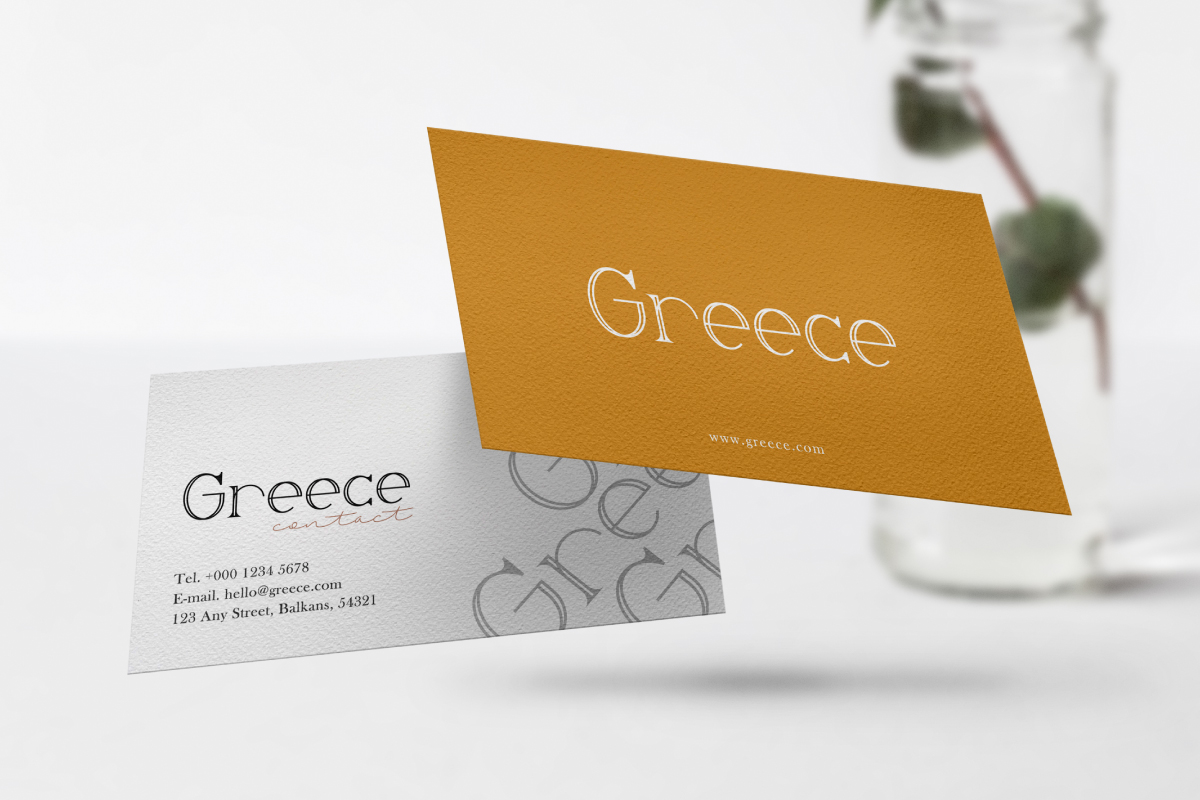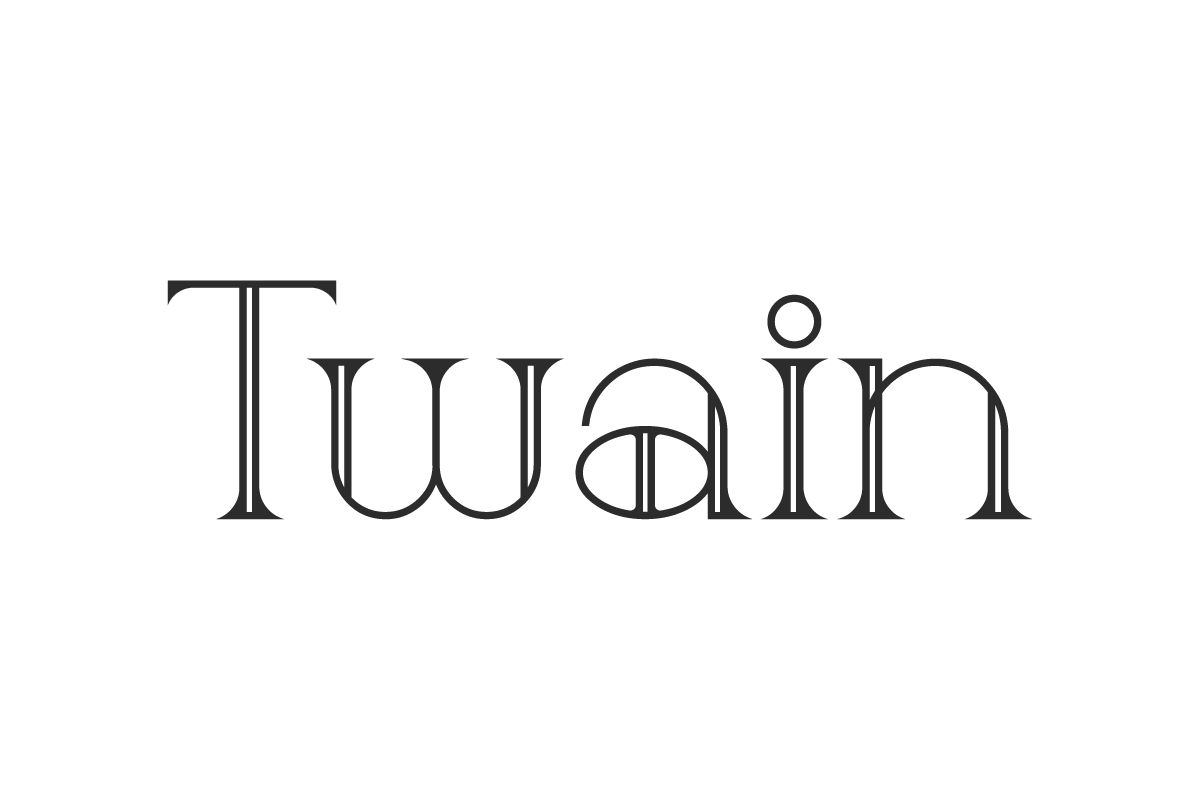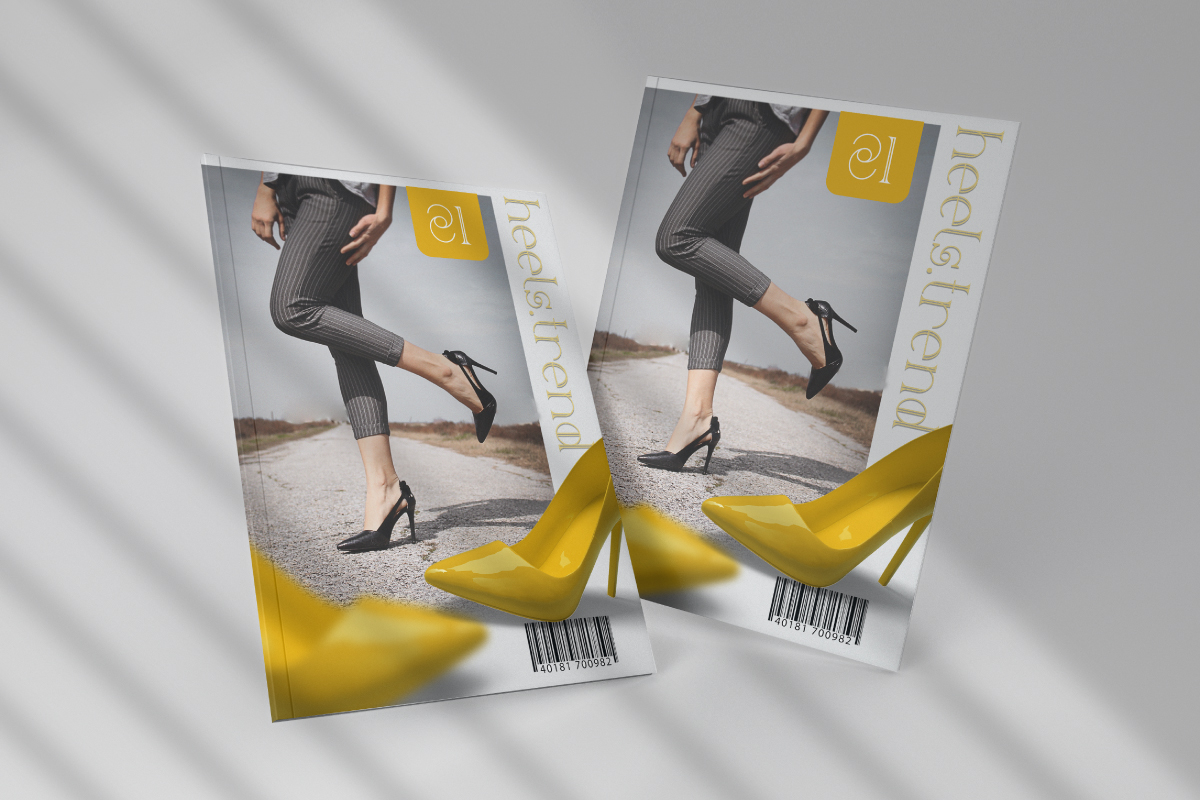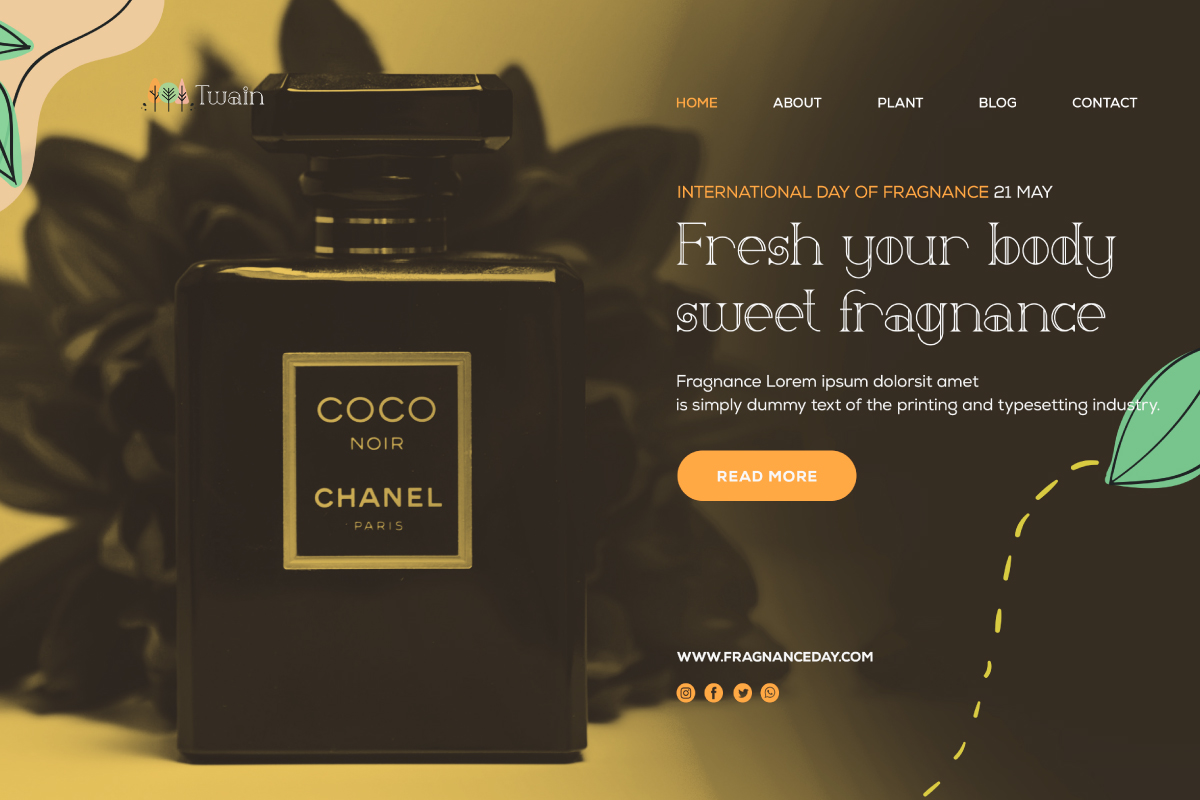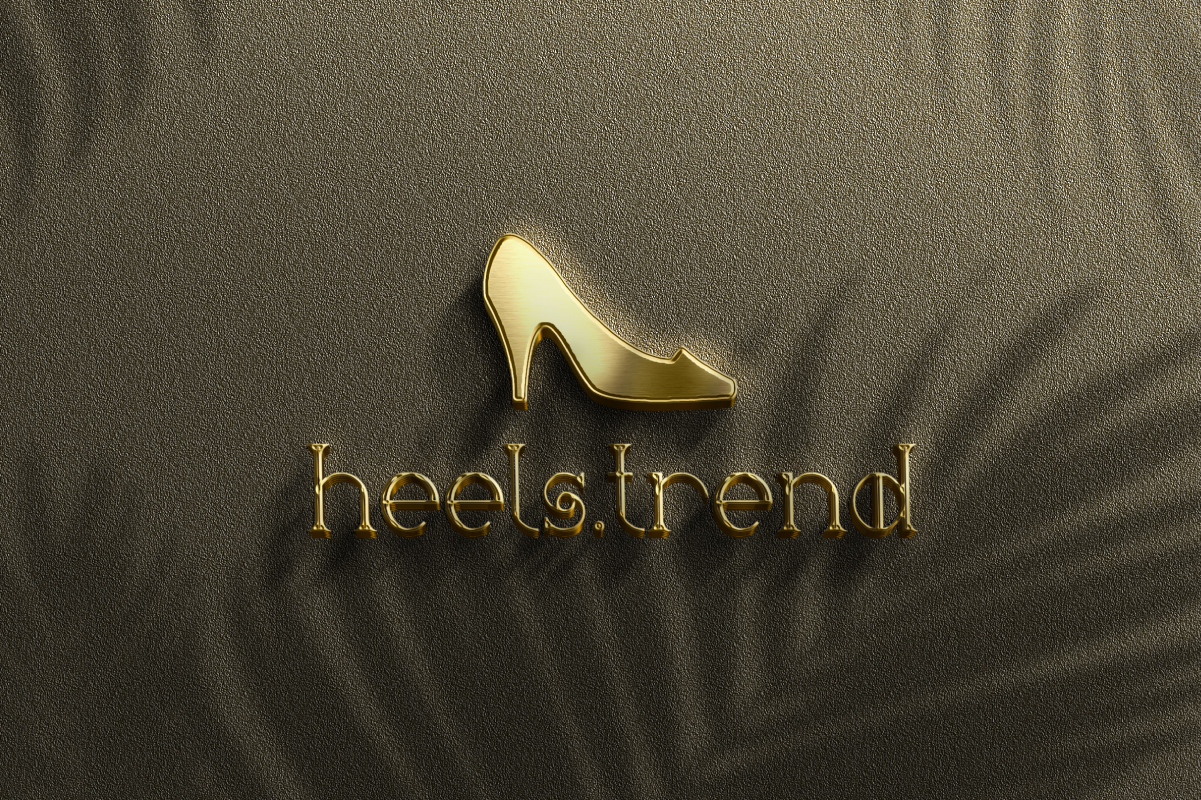
Twain Font
Twain Display Font
This font has unique and standout letter shape. The font was Handcrafted on 2021 here in our Studio-Indonesia. Twain Font will be great for any projects (require extended license) including : branding, logo, stationery, business card, signage, flyer, brochure etc.